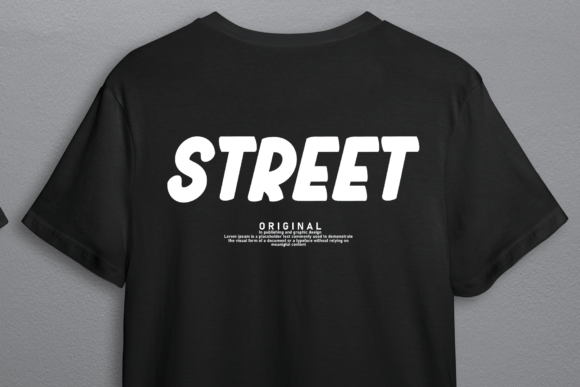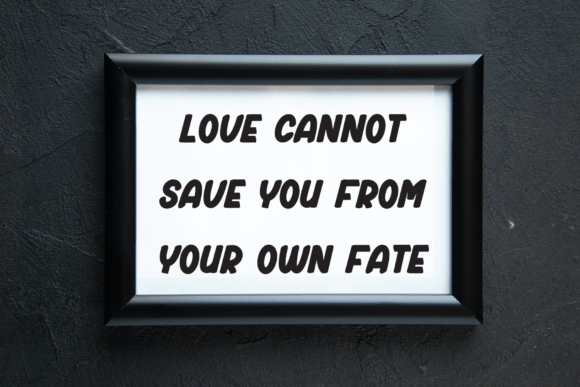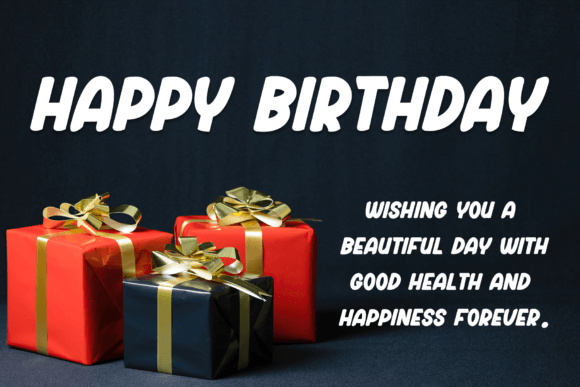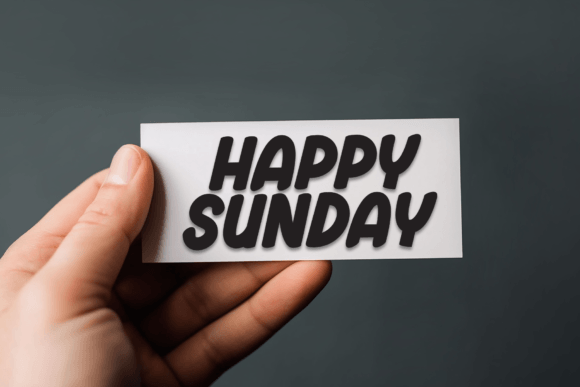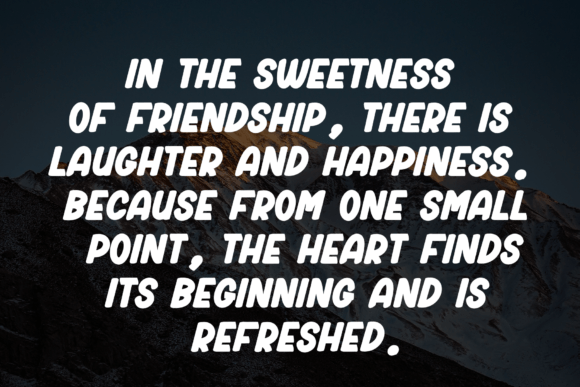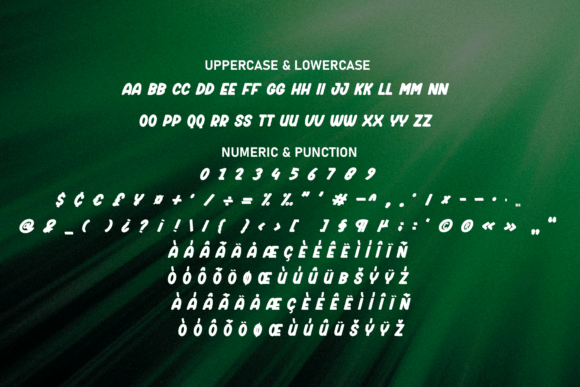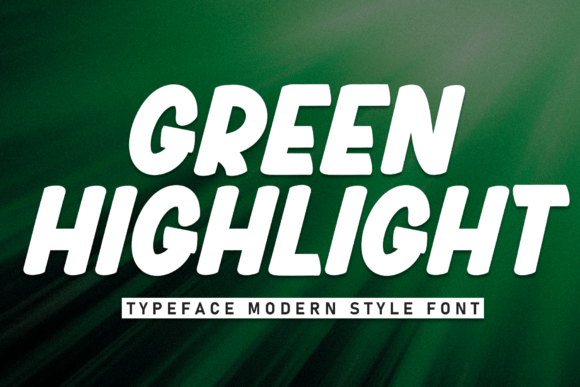
Introducing Green Highlight Font: The Ultimate Choice for Eye-Catching Titles and Headlines
Are you a designer or crafter looking for a font that can make your titles and headlines stand out? Look no further than Green Highlight Font. This big, bold font is designed to grab attention with its thick letters and stylish look, making it perfect for posters, signs, and banners.
What Makes Green Highlight Font So Special?
Green Highlight Font is a unique and versatile font that offers a range of benefits for designers and crafters. Here are just a few reasons why it’s a top choice:
- High Visibility: The thick letters and bold design of Green Highlight Font make it highly visible, even from a distance. This is perfect for posters, signs, and banners that need to grab attention quickly.
- Stylish Look: The font has a stylish and modern look that will add a touch of sophistication to any design. Whether you’re creating a poster, sign, or banner, Green Highlight Font is sure to impress.
- Easy to Read: Despite its bold design, Green Highlight Font is easy to read, even in large blocks of text. This makes it perfect for creating titles and headlines that need to be clear and concise.
- Versatile: Green Highlight Font can be used in a range of design applications, from posters and signs to banners and more.
Tips and Tricks for Getting the Most Out of Green Highlight Font
Here are a few tips and tricks for getting the most out of Green Highlight Font:
- Use Contrasting Colors: Green Highlight Font works best when paired with contrasting colors. Try using a dark background with light-colored text for maximum visibility.
- Experiment with Effects: Don’t be afraid to experiment with effects, such as drop shadows and outlines, to add depth and interest to your text.
- Keep it Simple: While Green Highlight Font is a bold and eye-catching font, it’s best to keep your design simple and uncluttered. Avoid using too many fonts or design elements, and focus on your message.
Green Highlight Font is a powerful tool for designers and crafters looking to create eye-catching titles and headlines. With its bold design, stylish look, and high visibility, it’s perfect for posters, signs, and banners. By following the tips and tricks outlined above, you can get the most out of Green Highlight Font and create stunning designs that grab attention and communicate your message.